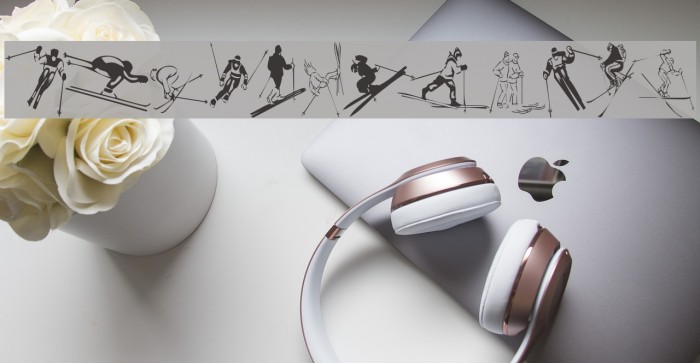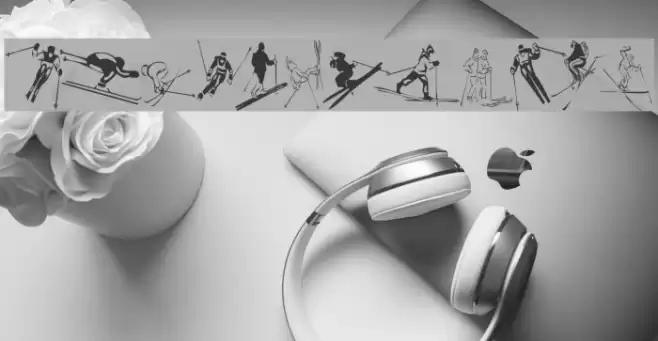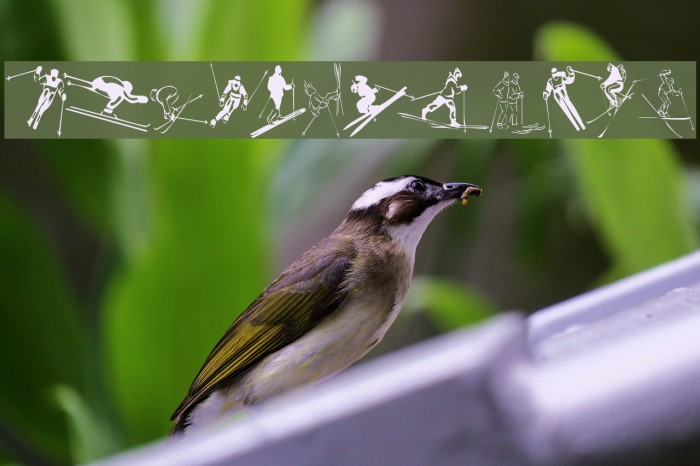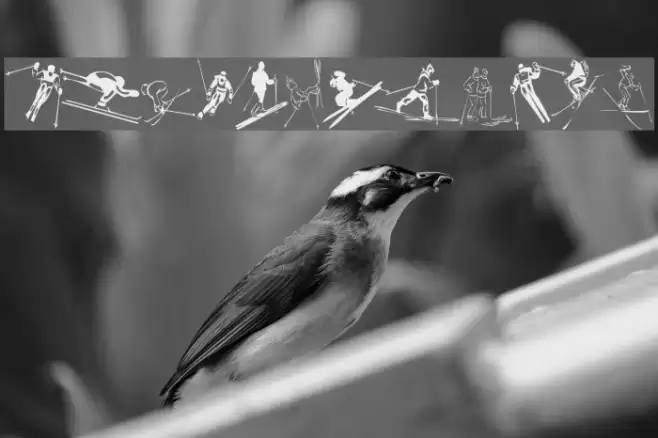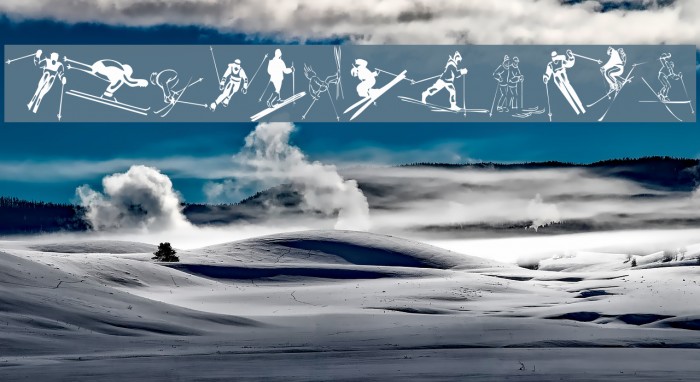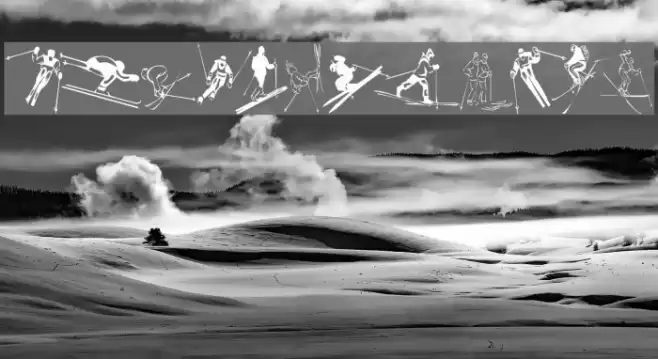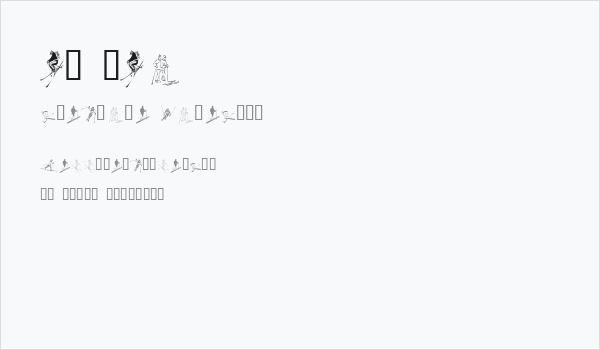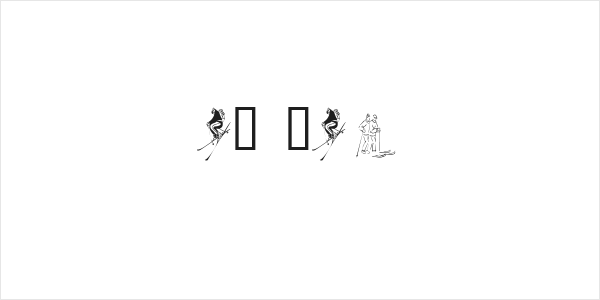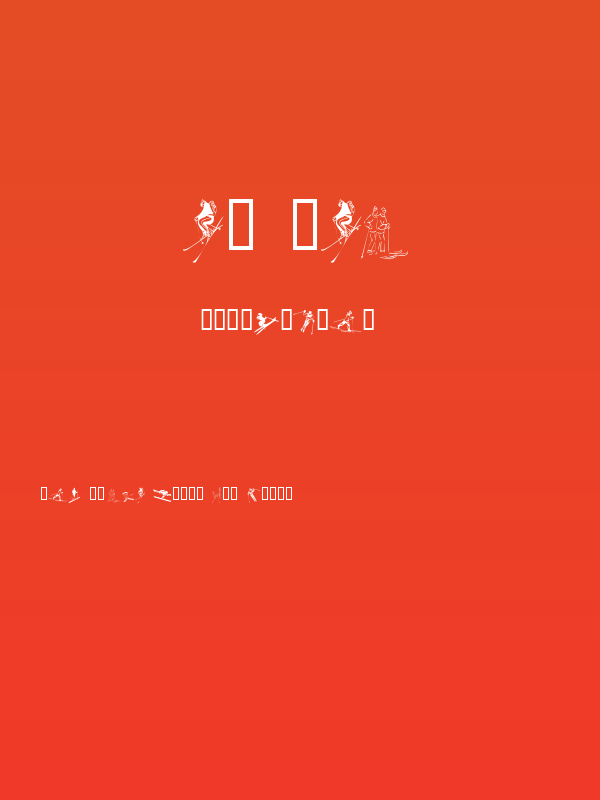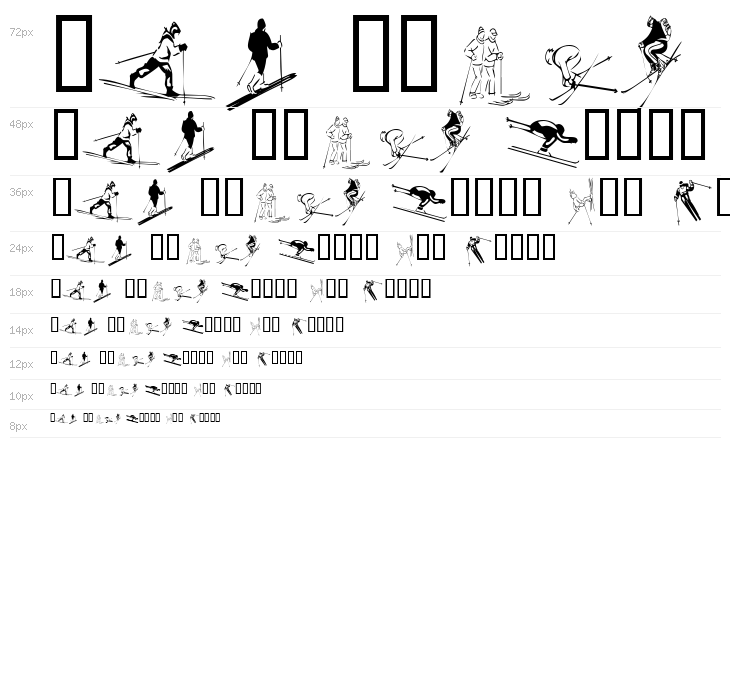
KR Ski Font
KR Ski Description
A decorative dingbat font featuring detailed illustrations of skiers in various dynamic poses and skiing activities. Each character is represented by a unique skiing scene, rendered in a hand-drawn, sketch-like style.
| Overall Style | Decorative, Thematic, Hand-drawn |
| Use Case | Logos, Posters, Themed graphics, Event materials |
| Proposed Projects | Winter sports event posters, ski resort branding, themed invitations, seasonal greeting cards, sports magazines. |